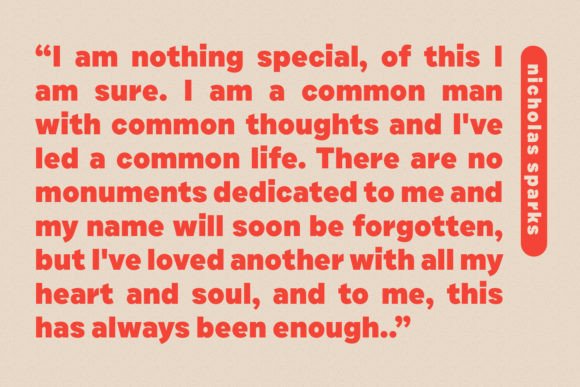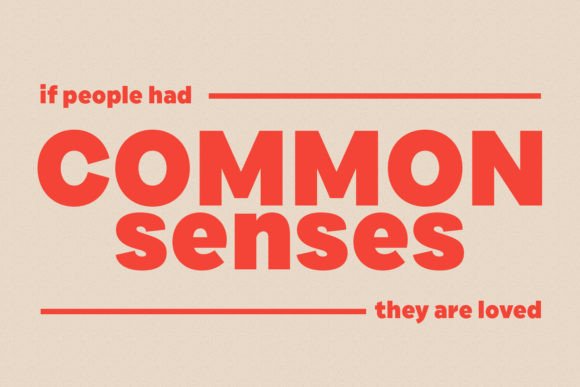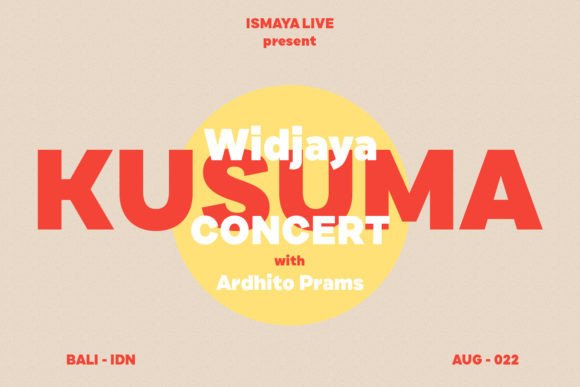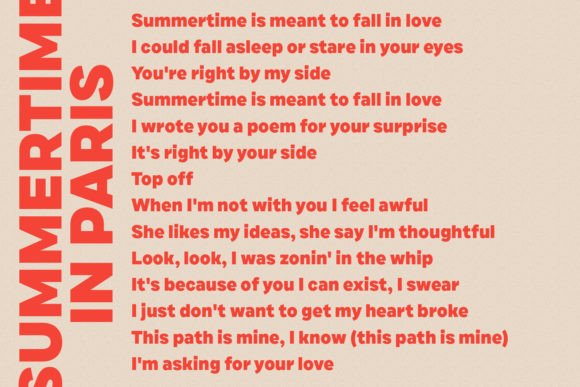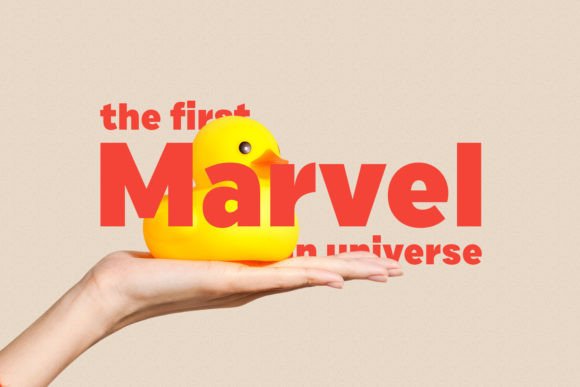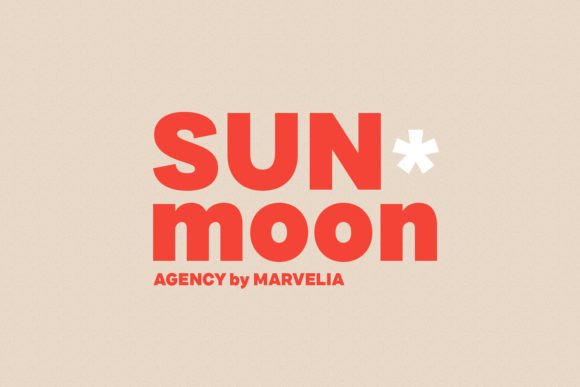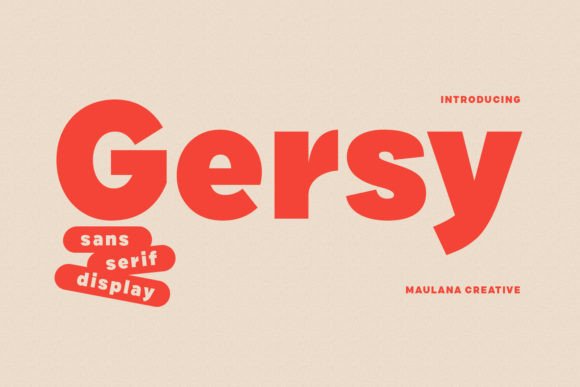
Introducing Gersy Font: The Fun and Unique Sans Serif for Crafty Designs
Are you tired of using the same old fonts for your designs? Look no further than Gersy Font, a fun and unique sans serif font that’s perfect for crafty ideas. With its original look, Gersy Font is sure to appeal to a wide range of designers and crafters looking to add a touch of personality to their work.
What Makes Gersy Font So Special?
Gersy Font is a one-of-a-kind sans serif font that’s designed to stand out from the crowd. Its clean and simple lines make it easy to read, while its unique charm adds a touch of whimsy to any design. Whether you’re working on a letterhead, title, or stationery, Gersy Font is the perfect choice for adding a bit of flair.
One of the best things about Gersy Font is its versatility. It’s perfect for a wide range of design projects, from:
- Letterheads and titles: Add a touch of personality to your business correspondence with Gersy Font.
- Stationery: Make your notes and letters stand out with this unique font.
- Signs and posters: Gersy Font is perfect for eye-catching signs and posters.
- Digital graphics: Use Gersy Font to add a touch of whimsy to your social media graphics and blog posts.
Why Designers and Crafters Love Gersy Font
So why do designers and crafters love Gersy Font? Here are just a few reasons:
- Unique look: Gersy Font has a one-of-a-kind look that’s sure to make your designs stand out.
- Easy to read: Despite its unique look, Gersy Font is easy to read, making it perfect for body text and headlines.
- Versatile: Gersy Font can be used for a wide range of design projects, from digital graphics to print materials.
- Fun: Let’s face it – Gersy Font is just plain fun! It’s the perfect choice for designers and crafters who want to add a bit of personality to their work.
Tips for Using Gersy Font in Your Designs
Here are a few tips for using Gersy Font in your designs:
- Use it sparingly: While Gersy Font is fun and unique, it can be overwhelming if used too much. Use it sparingly to add a touch of personality to your designs.
- Pair it with other fonts: Gersy Font pairs well with a wide range of other fonts. Try pairing it with a serif font for a classic look or with another sans serif font for a modern feel.
- Experiment with colors: Gersy Font looks great in a wide range of colors. Experiment with different colors to find the one that works best for your design.
In conclusion, Gersy Font is a fun and unique sans serif font that’s perfect for crafty designs. With its original look and versatile nature, it’s sure to appeal to a wide range of designers and crafters. Whether you’re working on a letterhead, title, or stationery, Gersy Font is the perfect choice for adding a bit of personality to your work. So why not give it a try and see what amazing designs you can create?